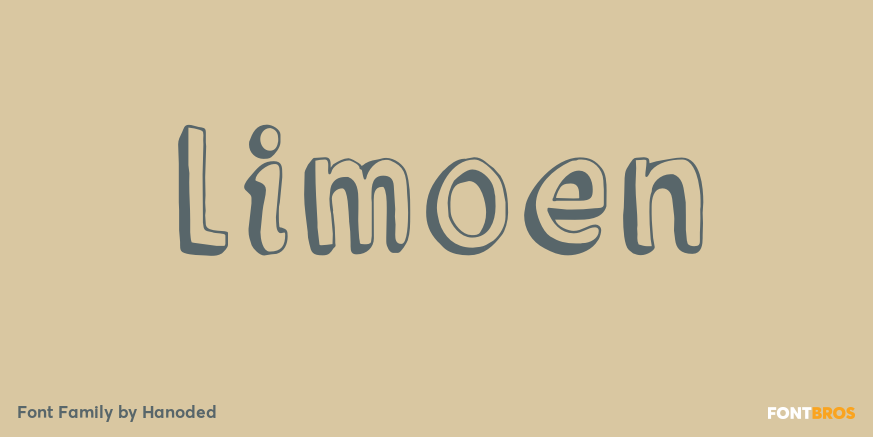
Limoen
About Limoen
Limoen means ?lemon? in Dutch. Why did I call this font Limoen? Well, I guess I ran out of meaningful names, so I had to work with whatever popped in my head – which happened to be Limoen. Don\’t ask? Limoen is a very cute, very threedee-ish typeface.…